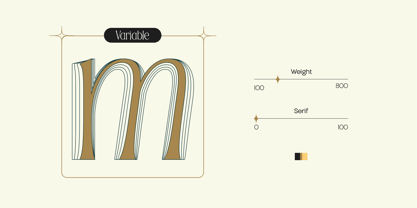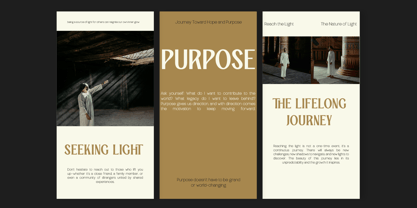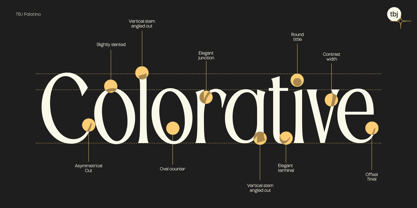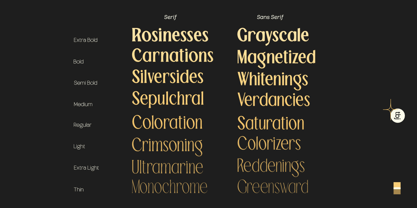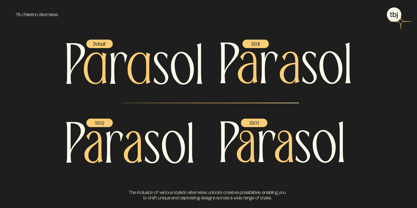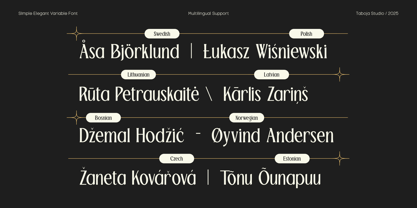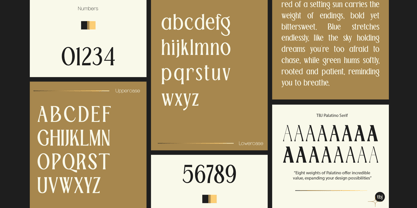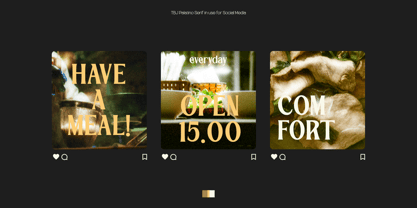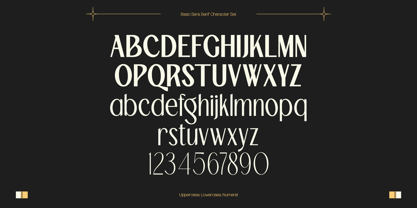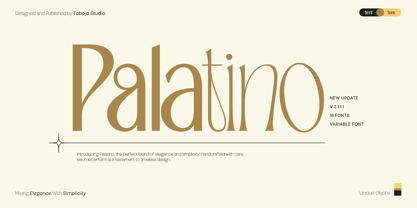
TBJ Palatino 2 Styles
by Taboja Studio
The TBJ Palatino 2 Styles Font Family was designed by Yusilo Oktaprima Ardani and published by Taboja Studio. TBJ Palatino 2 Styles contains 16 styles and family package options.
We have now updated TBJ Palatino into a family font, adding variable font capabilities to enhance its versatility. The updated TBJ Palatino features two distinct styles: serif display and sans serif display.
Tired of the conventional market offerings, we wanted to create a fresh alternative by merging serif and sans serif display styles into one cohesive family. With TBJ Palatino, clients can customize the serif elements to suit their unique design needs, delivering a perfect balance of classic elegance and modern adaptability
TBJ Palatino Sans & Serif Includes:
- Sans Thin, Sans Extra Light, Sans Regular, Sans Medium, Sans Bold, Sans Extra Bold.
- Serif Thin, Serif Extra Light, Serif Regular, Serif Medium, Serif Bold, Serif Extra Bold.
- Uppercase and Lowercase
- Numerals and Punctuation
- 100 Various Alternates And Ligatures
- Accented characters
- Multilingual Support